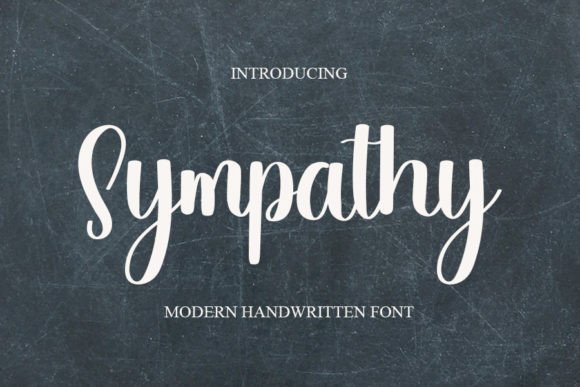
Meet Sympathy Font, the extraordinary script font that exudes elegance and charm. With its graceful curves and delicate strokes, this font is a true masterpiece, meticulously crafted to elevate your designs to new heights.
Sympathy's enchanting personality is sure to captivate your audience, adding a touch of sophistication and timeless beauty to your projects. Picture your wedding invitations adorned with Sympathy's flowing lines, whispering sweet nothings to your loved ones. Its refined style is a perfect match for wedding signs, creating an ethereal ambiance that will leave a lasting impression.
Unleash your creativity with Sympathy. Let its elegant touch enhance your branding, social media posts, or personal projects. This versatile font is at home in a variety of settings, from heartfelt love letters to chic fashion blogs. It's the perfect choice for adding a touch of elegance and personality to any design.
Immerse yourself in the world of Sympathy and discover a font that is as captivating as it is versatile. Its distinctive charm is sure to leave a lasting impression on your audience, making them fall in love with your designs.